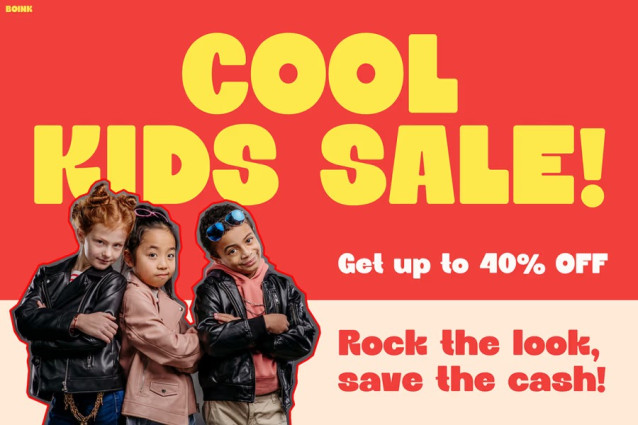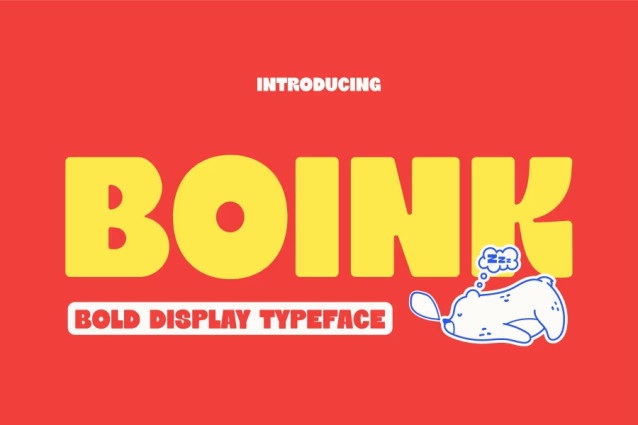
Boink Font is a loud and cheerful display typeface that bursts with energy and personality! Each letter feels alive, bold, and ready to play — making every design pop with color and confidence. Inspired by retro toy packaging, vintage comics, and kids’ joyful imagination, BOINK brings a perfect balance between playfulness and readability. It’s chunky, vibrant, and full of character, making it a must-have for designs that want to shout happiness and creativity.
The uniqueness of Kids Font BOINK lies in its dynamic shape and bold weight. Every curve feels bouncy, while its rounded edges give a friendly, approachable vibe. Because of its fun proportions, this font naturally draws attention and sparks excitement, whether it’s on a poster, packaging, or digital screen. The typography looks strong, but not stiff — every letter seems to jump and dance, creating a lively visual rhythm that instantly appeals to kids and parents alike.
Moreover, BOINK’s bold display style allows it to stand out in any setting. It’s not just fun — it’s functional too. You can use it for short texts, headlines, or product names that need maximum visual punch. It keeps your message clear while filling it with youthful spirit and joy.
Perfect For
Kids Font BOINK is perfect for designers, educators, and brand creators who want their work to radiate energy and playfulness. It’s especially ideal for children’s brands, toy stores, school promotions, birthday party invites, and colorful advertising campaigns.
Marketers can use it to make sale posters or banners that instantly grab attention, while teachers can use it to design fun and welcoming classroom materials. BOINK also works wonderfully for birthday cards, kids’ apparel branding, and even restaurant menus that cater to families.
Whether you’re creating a Back to School campaign, a Happy Birthday greeting, or a bold Toy Store logo, this font adds a delightful spark that makes your designs unforgettable.
Make Words Jump with Joy
With Kids Font BOINK, words don’t just speak — they bounce, laugh, and play! Each letter brings a spark of childhood fun, making your design come alive with pure happiness. Don’t just design; create joy! Choose BOINK today and watch your ideas jump off the page with confidence and charm.